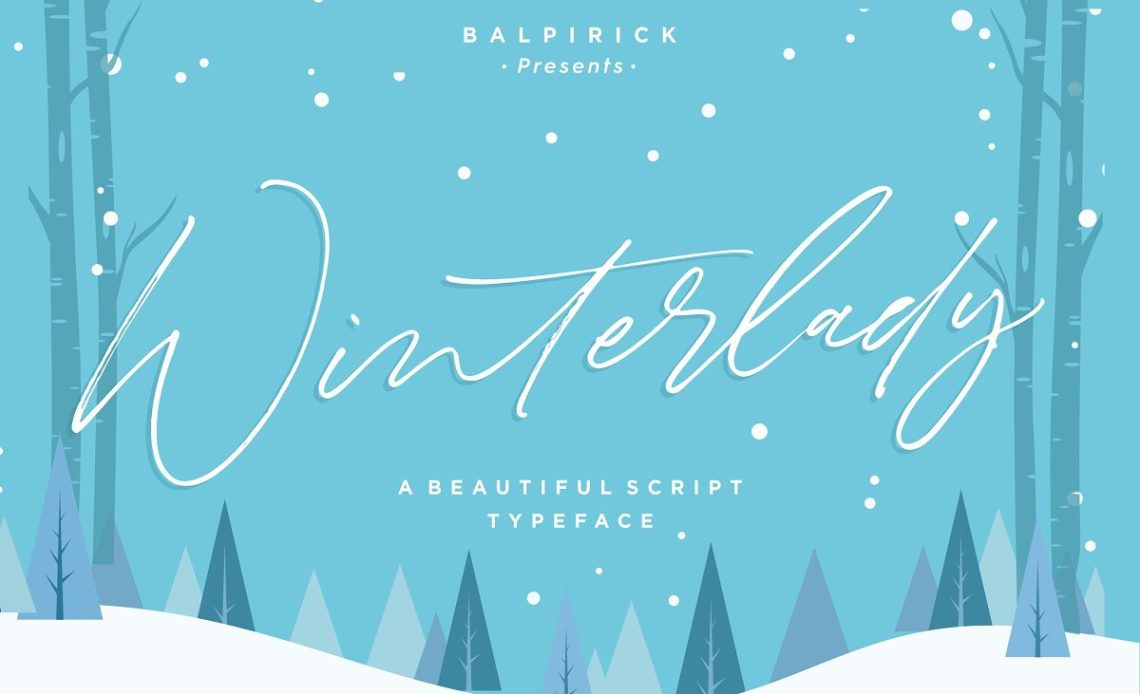
Introducing Winterlady - the Beautiful Script Font that will captivate your senses and elevate your design projects to new heights. Created by the talented Balpirick Studio, this font is the epitome of elegance and sophistication, making it the perfect choice for all your invitation needs.
Winterlady draws inspiration from classic typography, infusing it with a unique and modern twist. With its graceful curves and exquisite details, this font exudes a timeless charm that will leave a lasting impression on anyone who lays eyes on it. Whether you're designing wedding invitations, greeting cards, or any other creative project, Winterlady will add a touch of magic to your work.
One of the standout features of Winterlady is its versatility. It is designed to shine in any setting, whether it's large headlines or small blocks of text. This font effortlessly adapts to different sizes and styles, ensuring that your message is delivered with impact and clarity. No matter the medium - web, print, or even moving images - Winterlady will make your designs come alive.
So why wait? Let Winterlady weave its magic into your designs and watch them come to life with unparalleled elegance. Embrace the beauty of this script font and unlock a world of possibilities for your creative endeavors.